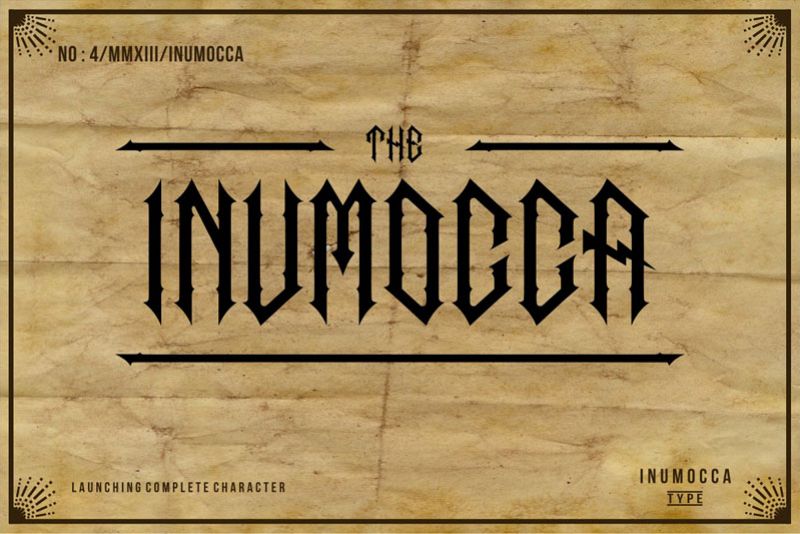
The Inumocca complete
The inumocca inspired from gothic and electric lettering .
its really great font for your band, company, label,
clothing company, etc
Available : UPPERCASE With Ornament basic solid
Numeric,
Symbol,
Punctuation characters